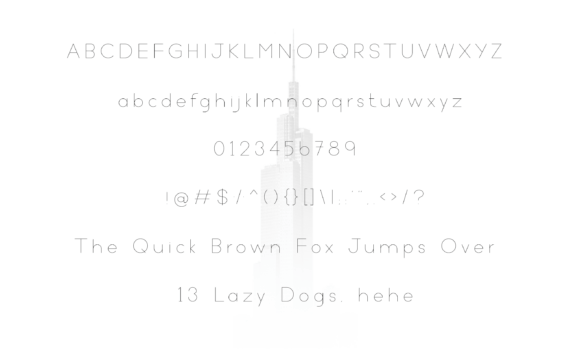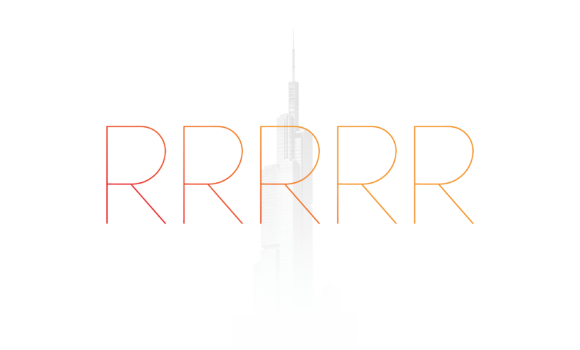
The Perfect Canvas for Your Creative Vision
Imagine you’re working on a project, and you finally have that ‘aha’ moment – the moment when everything clicks into place, and your design starts to take shape. The colors are right, the typography is spot on, and the message is clear. But, there’s one crucial element that can make or break the entire look: the font. This is where the Averon Font comes in – a sleek, contemporary sans-serif font designed to deliver a polished, modern aesthetic that elevates your work.
Whether you’re creating professional presentations, stylish packaging, or web designs, Averon Font is the perfect tool to help you achieve your creative vision. Its clean lines, balanced proportions, and subtle geometric details make it an invaluable asset for designers who value versatility and readability.
Averon Font Key Features
- Font Family: Averon is a modern sans-serif font family, designed to be versatile and readable in various digital and print media.
- Character Count: Averon includes over 800 characters, including Latin, Cyrillic, and Greek alphabets, as well as a range of punctuation and special characters.
- Size: Averon is available in 7 weights, ranging from Light to ExtraBold, allowing for a high degree of customization and flexibility.
- Resolution: Designed to be scalable, Averon is optimized for use at high resolutions (up to 300 DPI) and can be easily resized without losing clarity or quality.
- Unique Characteristics: Averon features a unique blend of geometric and organic elements, resulting in a distinctive and modern aesthetic that is both elegant and approachable.
Averon Font Review
Averon Font is a modern, sans-serif font designed for digital use. I’ve had a chance to work with it, and here’s my honest review.
- ✨ Averon Font is highly legible on both small and large screens, making it perfect for digital content.
- ✨ It has a clean and minimalistic design, which makes it suitable for various applications, from web design to mobile apps.
- ✨ Averon Font is highly customizable, with various font weights and styles available, allowing designers to create a unique look.
- ⚠️ Averon Font may not be the best choice for print materials, as it can appear too digital and less polished on paper.
- ⚠️ The font’s design may not be suitable for traditional or classic applications, as it has a distinctly modern feel.
Overall, Averon Font is a solid choice for digital designers looking for a clean, modern, and highly customizable font. While it may have some limitations, its strengths make it a great addition to any design toolkit.
Tips for Getting the Most Out of Averon Font
Averon